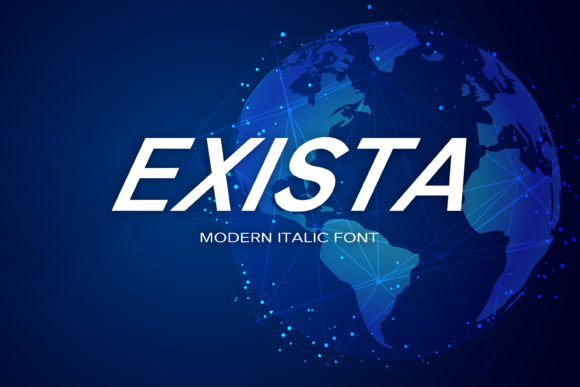
Exista Font: A Timeless Classic with a Modern Twist
In the world of typography, few fonts manage to strike a balance between classic charm and modern flair. Exista Font is one such exceptional typeface that seamlessly blends traditional sign painting inspiration with a contemporary edge. This display font is not only visually stunning but also incredibly versatile, making it an excellent choice for a wide range of design projects.
What is Exista Font?
Exista Font is a carefully crafted display typeface that draws its inspiration from the art of traditional sign painting. The result is a font that exudes a sense of timelessness and sophistication while still feeling fresh and modern. Its clean lines and dynamic style make it perfect for designers looking to add a touch of elegance and personality to their work.
Key Features of Exista Font
- Classic Inspiration: Exista Font is rooted in traditional sign painting, giving it a classic and enduring appeal.
- Modern Twist: Despite its traditional roots, Exista boasts a modern flair that sets it apart from more conventional typefaces.
- Super Clean: The font features exceptionally clean lines and a well-defined structure, ensuring it looks great in any design.
- Dynamic Style: Exista’s design is dynamic and engaging, making it perfect for headlines, logos, and other prominent design elements.
- Versatile: From branding and logos to business cards and t-shirts, Exista Font is suitable for a wide range of design applications.
Uses and Applications of Exista Font
Exista Font’s versatility is one of its standout features. Its unique blend of classic and modern elements makes it suitable for various design projects. Here are some of the ways you can use Exista Font:
- Branding: Create memorable and impactful brand identities with Exista Font. Its clean and dynamic style ensures that your brand stands out.
- Logos: Design professional and stylish logos that capture the essence of your brand. Exista Font’s classic yet modern appeal makes it ideal for logo design.
- Headlines: Use Exista Font to create compelling headlines for magazines, websites, and advertisements. Its dynamic style grabs attention and adds a touch of sophistication.
- Business Cards: Elevate your business card design with Exista Font. Its clean lines and classic inspiration ensure that your business cards look professional and stylish.
- T-Shirts and Merchandise: Exista Font is also great for designing t-shirts, hoodies, and other merchandise. Its bold and dynamic style makes it perfect for apparel design.
Benefits of Using Exista Font
Choosing Exista Font for your design projects comes with several benefits. Here are some of the advantages of using this versatile typeface:
- Unique Style: Exista Font offers a unique style that sets it apart from more common typefaces. Its blend of classic and modern elements ensures that your designs stand out.
- High Versatility: Whether you’re working on branding, logos, headlines, or merchandise, Exista Font adapts seamlessly to different design needs.
- Professional Look: The font’s clean lines and dynamic style give your designs a professional and polished look, making them suitable for both digital and print applications.
- Easy to Read: Despite its stylized appearance, Exista Font remains highly legible, ensuring that your message is communicated clearly.
Tips for Using Exista Font
To get the most out of Exista Font, consider the following tips:
- Pair with Complementary Fonts: Exista Font works well when paired with complementary fonts. Choose fonts that contrast with Exista’s style to create visual interest.
- Adjust Letter Spacing: Experiment with letter spacing to find the right balance for your design. Proper kerning can enhance the overall look of the font.
- Use Appropriate Sizes: Exista Font is best used in larger sizes where its dynamic style can shine. For body text, consider using a simpler, more readable font.
- Play with Colors: Don’t be afraid to experiment with different colors. Exista Font looks great in bold, vibrant colors as well as more subdued tones.
| Font Name | Exista Font |
| Author | DmDesignsStoreArt |
Exista Font is a versatile and stylish typeface that brings a perfect blend of classic inspiration and modern flair to your designs. Its clean lines, dynamic style, and high versatility make it an excellent choice for a wide range of projects, from branding and logos to headlines and merchandise. By understanding its features, applications, and benefits, you can effectively incorporate Exista Font into your design work and create visually stunning and professional results.